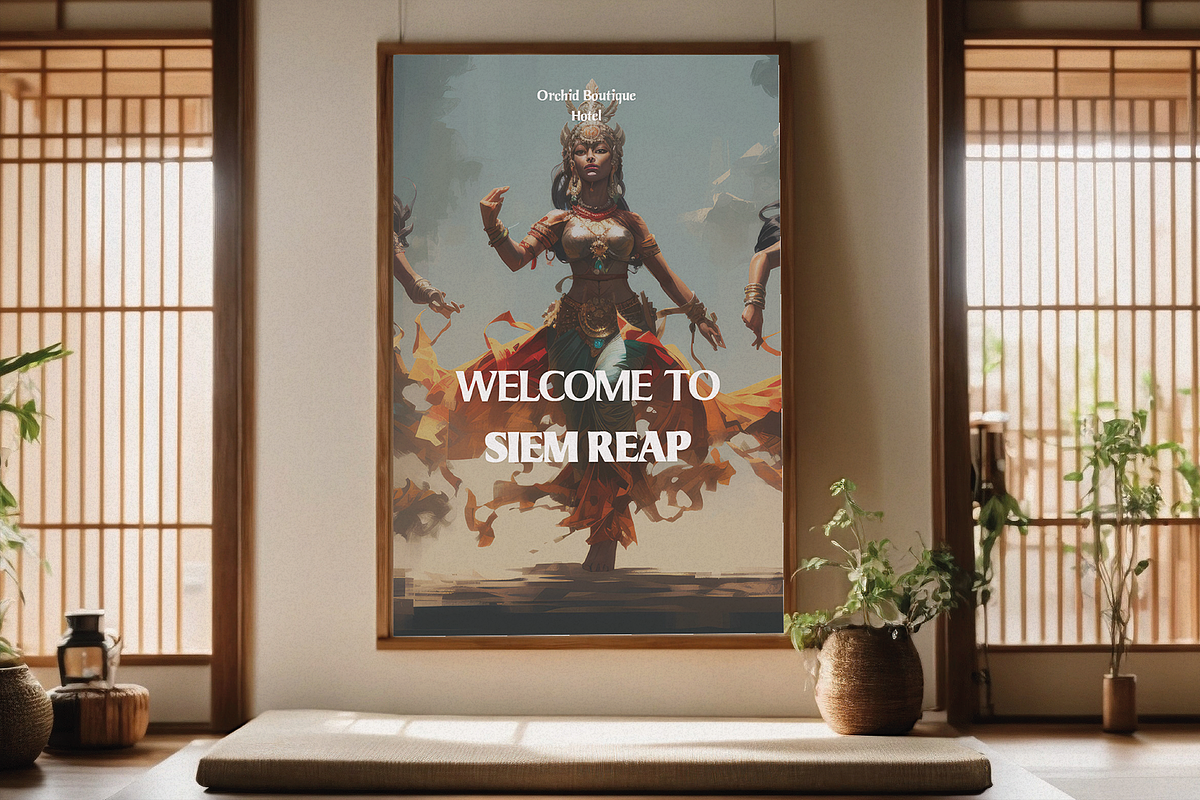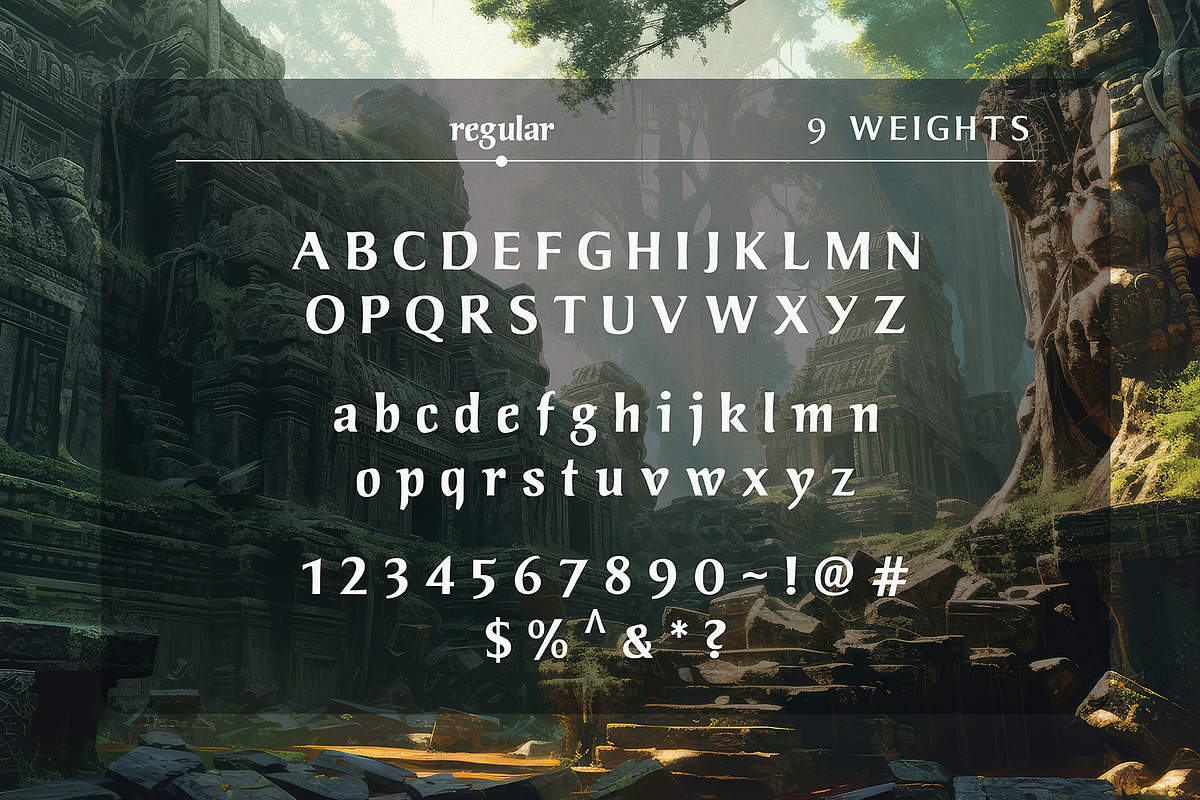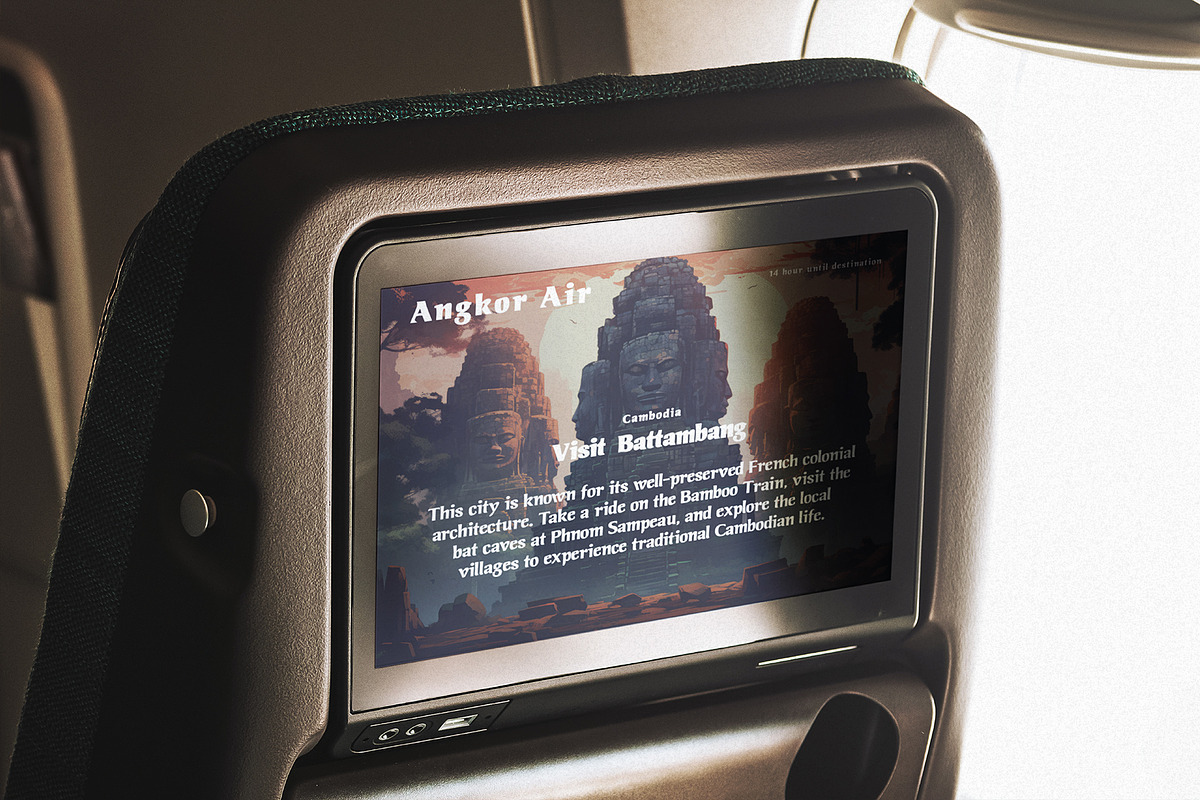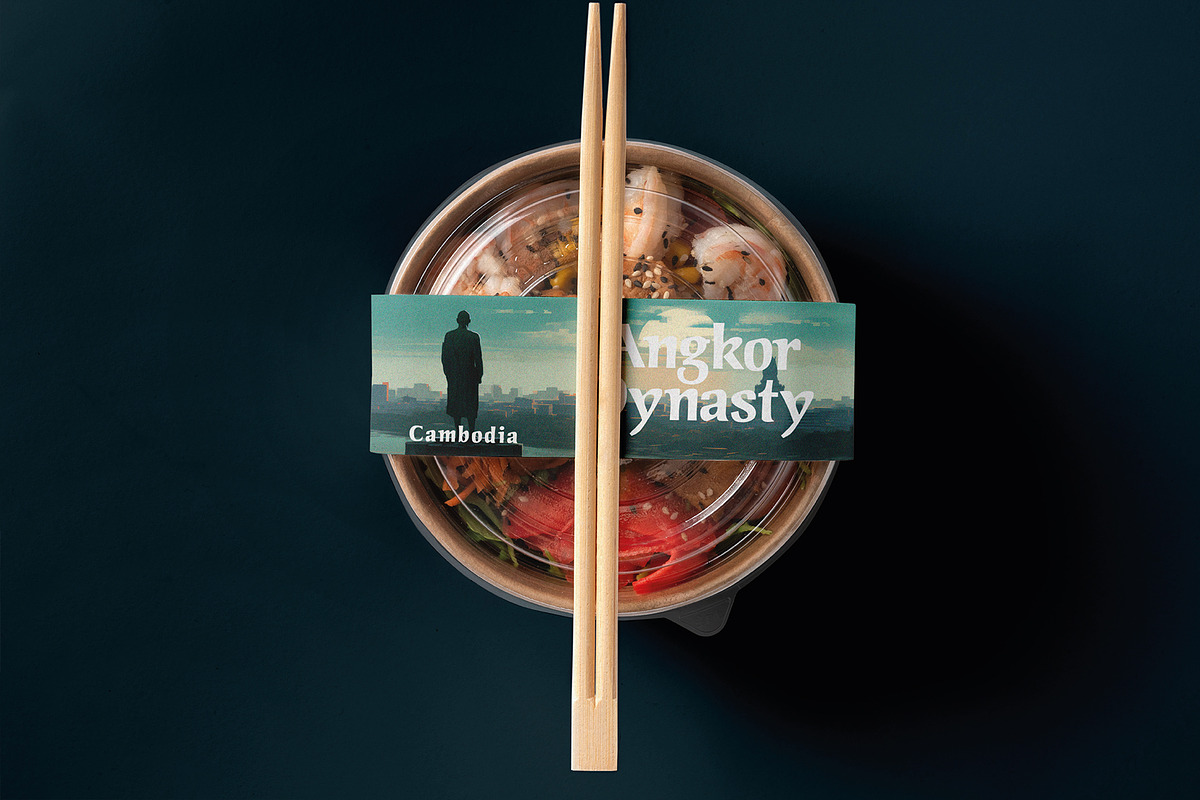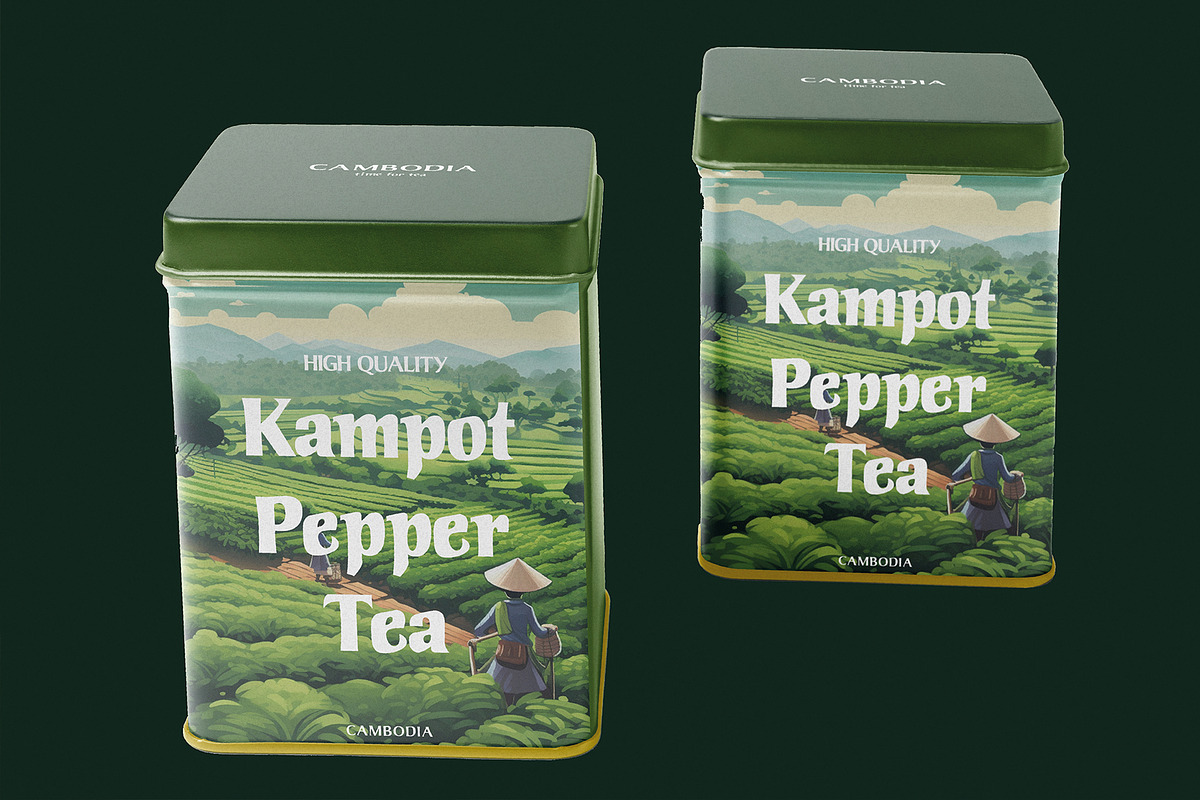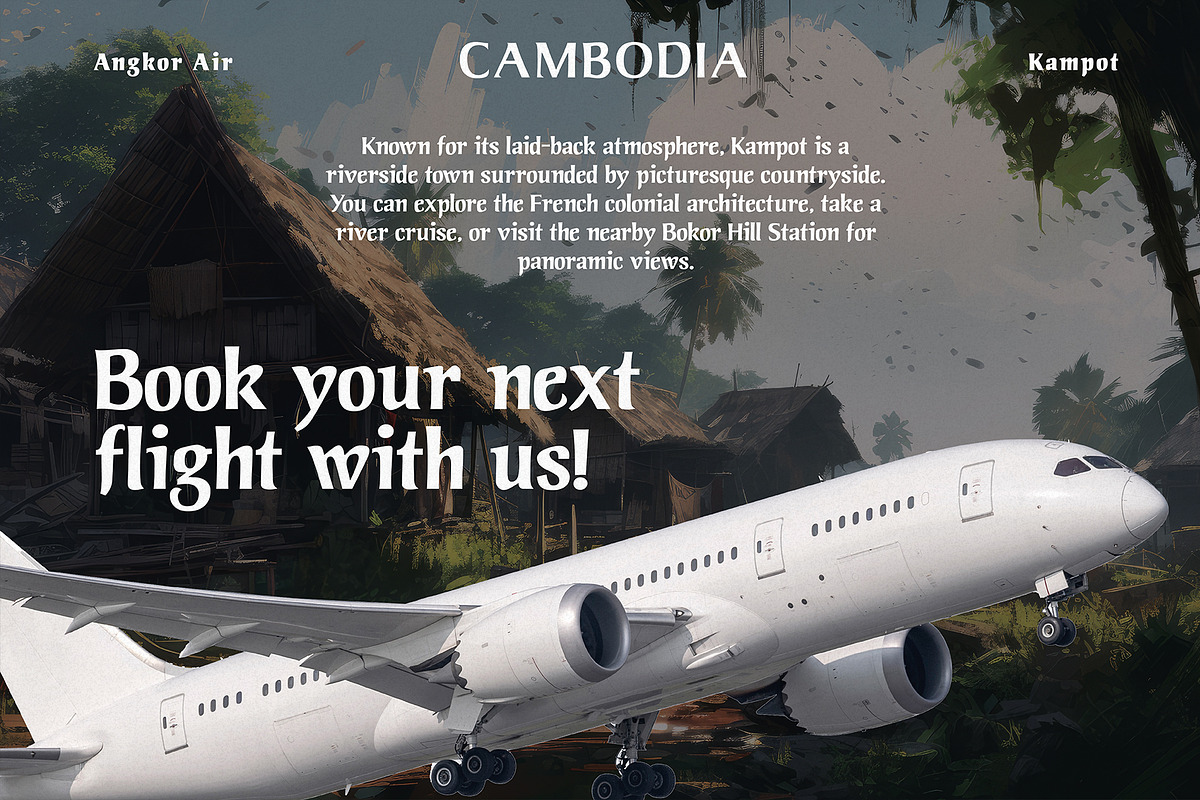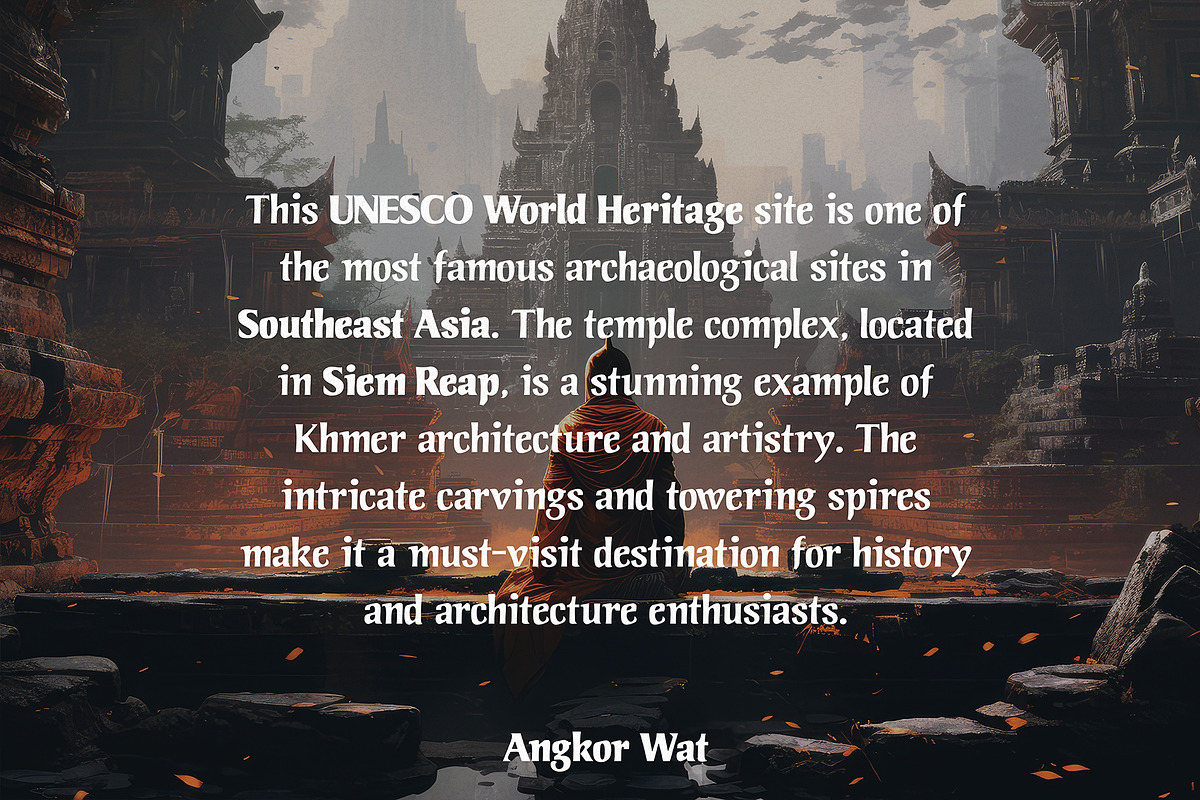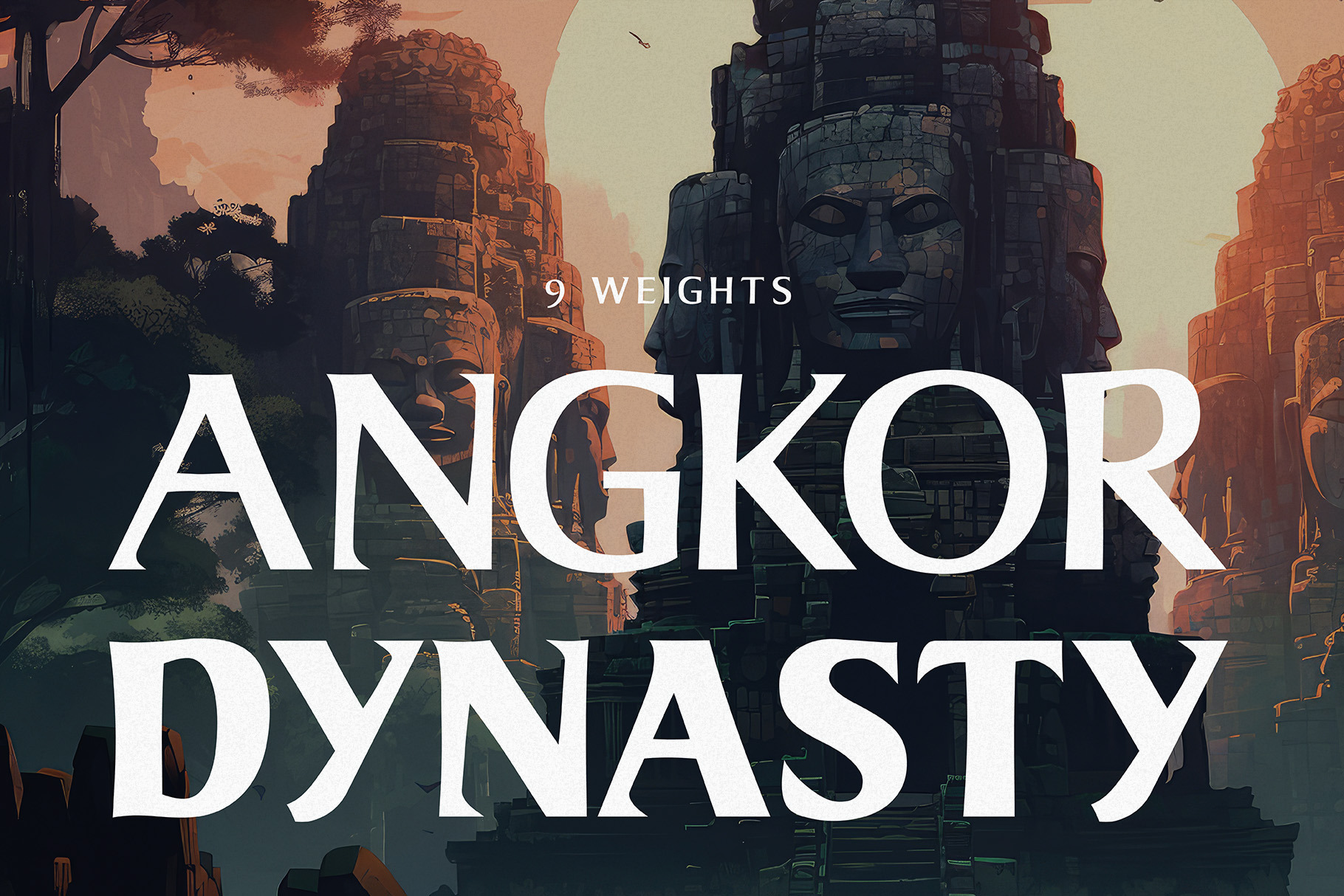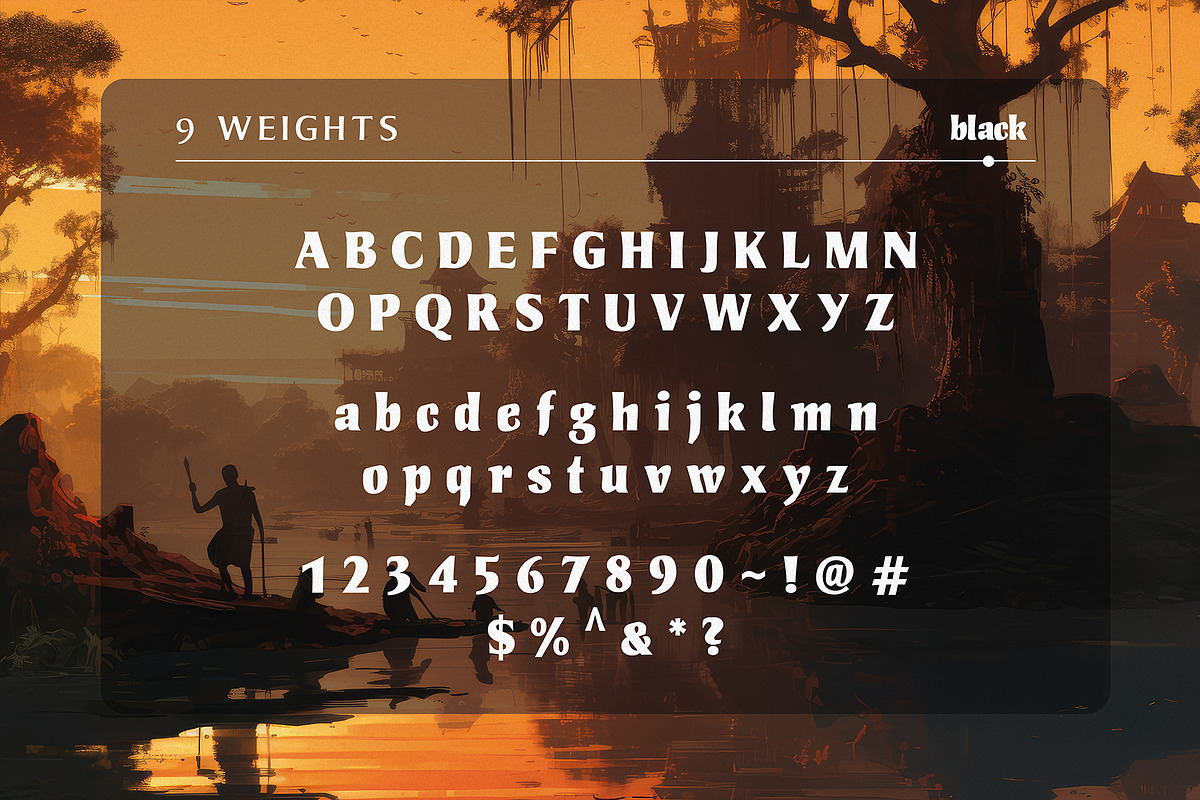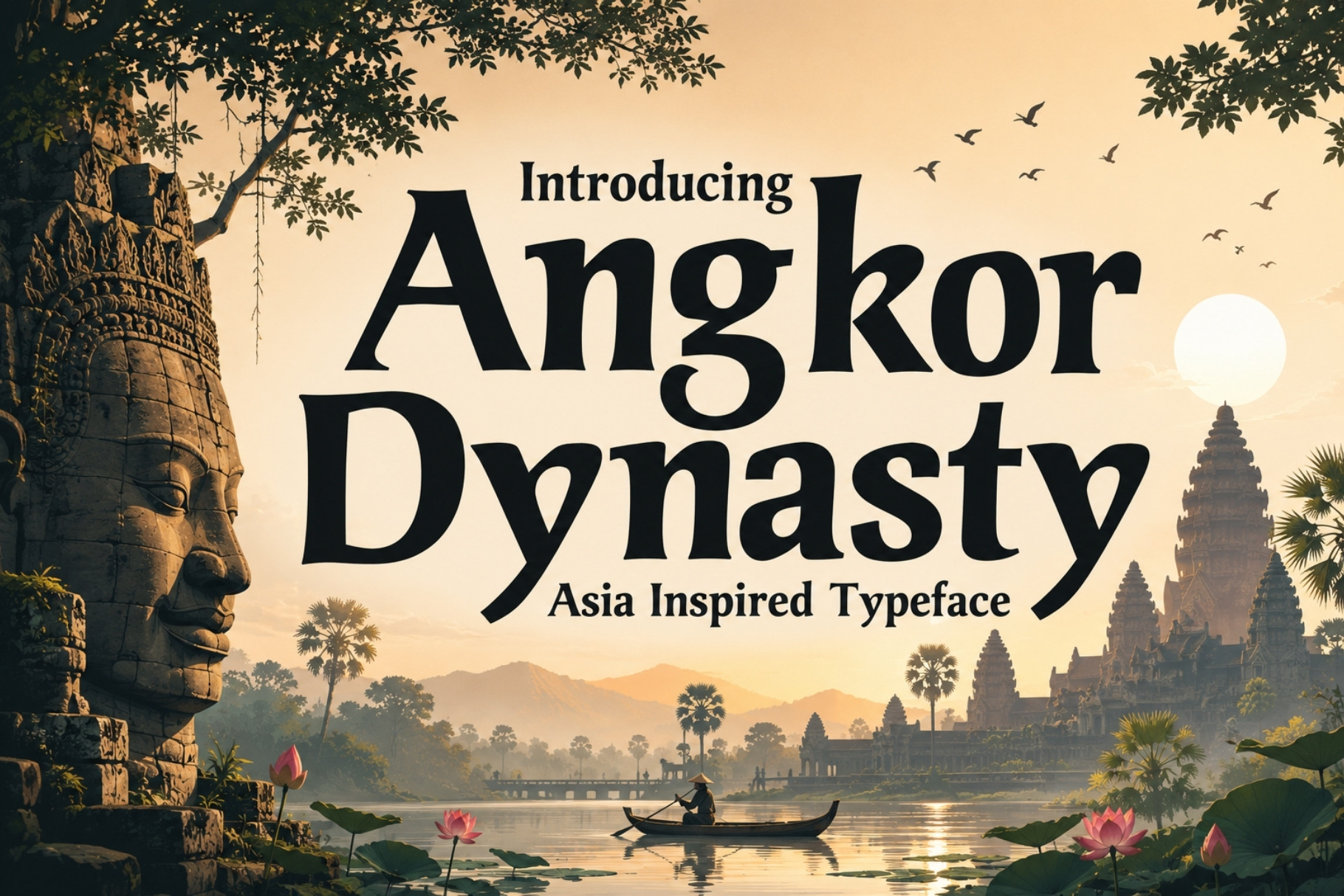
Angkor Dynasty - Asian Inspired Font
Embark on a typographic journey through history with Angkor Dynasty, a typeface that beautifully marries the timeless elegance of serif fonts with the rich cultural tapestry of Cambodia. Inspired by the majestic legacy of the ancient Angkor civilization, this font is not just a collection of characters; it's a tribute to a storied past, encapsulating the essence of Asian artistry and the profound depth of Cambodian heritage.
Angkor Dynasty stands as a bridge between the old and the new, meticulously crafted to bring the powerful stories of the past into the present. Each letter is infused with the spirit of Cambodian history, reflecting the intricate carvings and architectural brilliance of the Angkor temples. The typeface's unique features – from its elegant curves to its distinctive serifs – echo the exquisite craftsmanship of ancient Khmer script, making it an ideal choice for projects that seek to evoke a sense of wonder and historical richness.
Whether you're creating a brand identity, designing an editorial piece, or setting up signage that demands attention, Angkor Dynasty adds a touch of sophistication and historical intrigue. Its versatility makes it suitable for a wide array of design needs, from academic publications to luxury branding. With Angkor Dynasty, designers and creatives can harness the power of typography to tell compelling stories, paying homage to the beauty and legacy of Cambodian culture and history. Embrace the unique blend of tradition and modernity with Angkor Dynasty, and let your designs resonate with the echoes of an ancient empire.